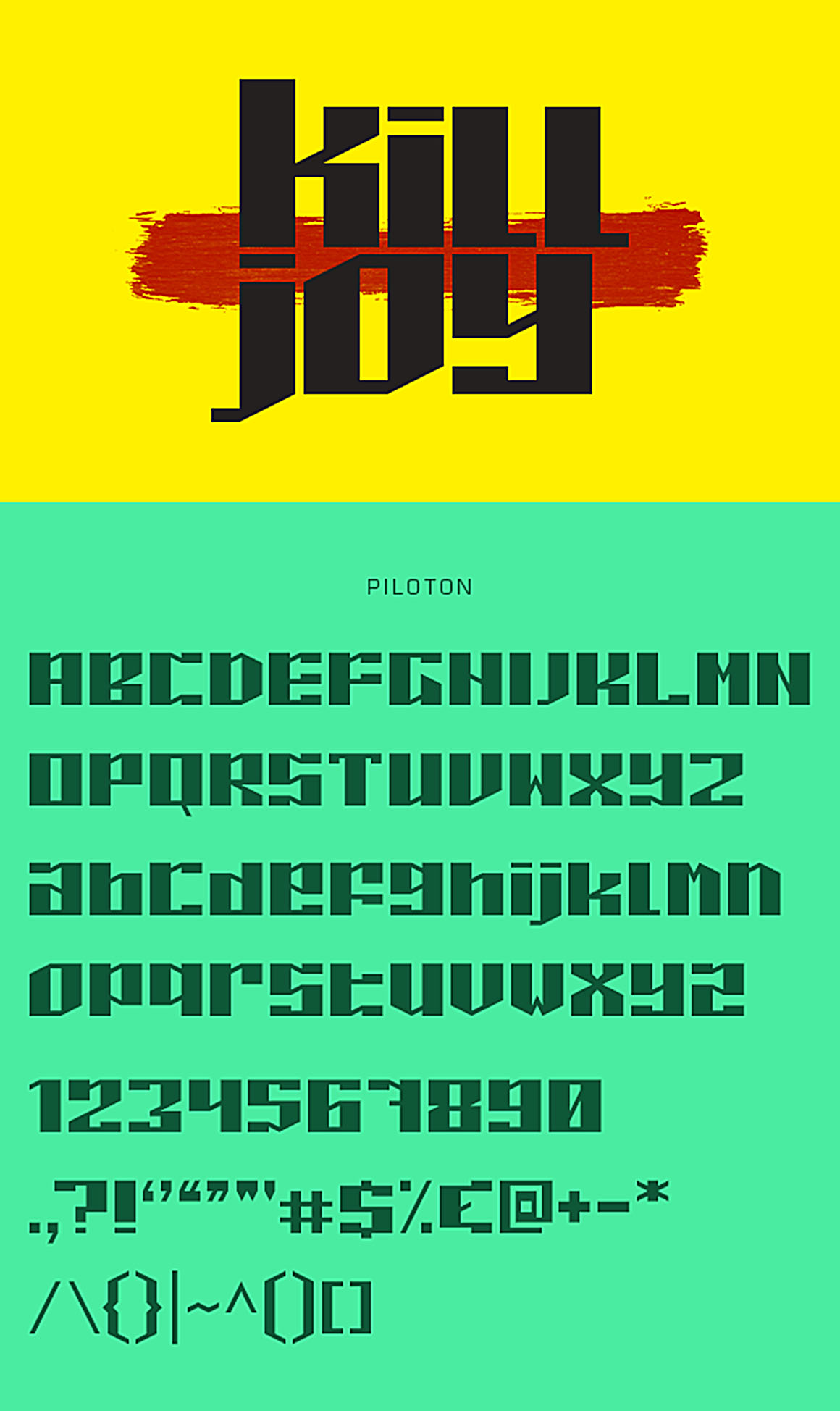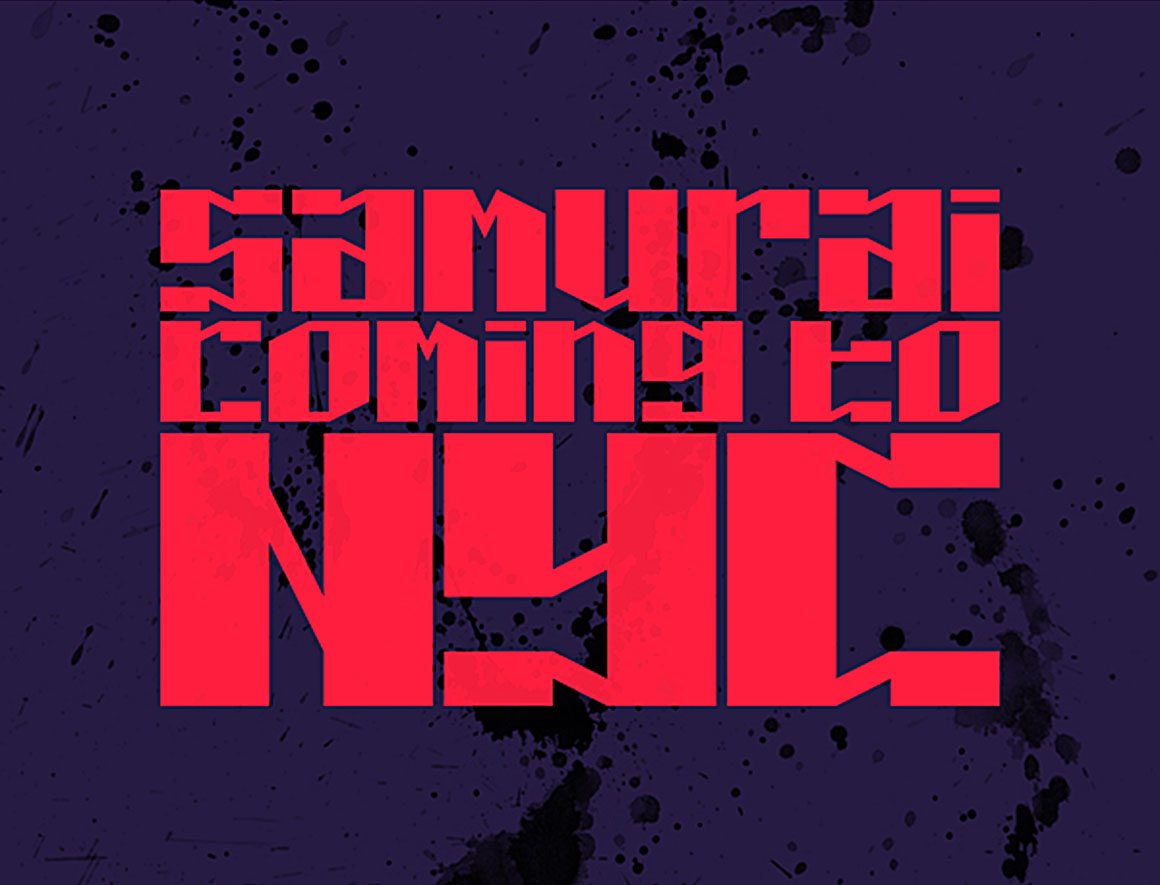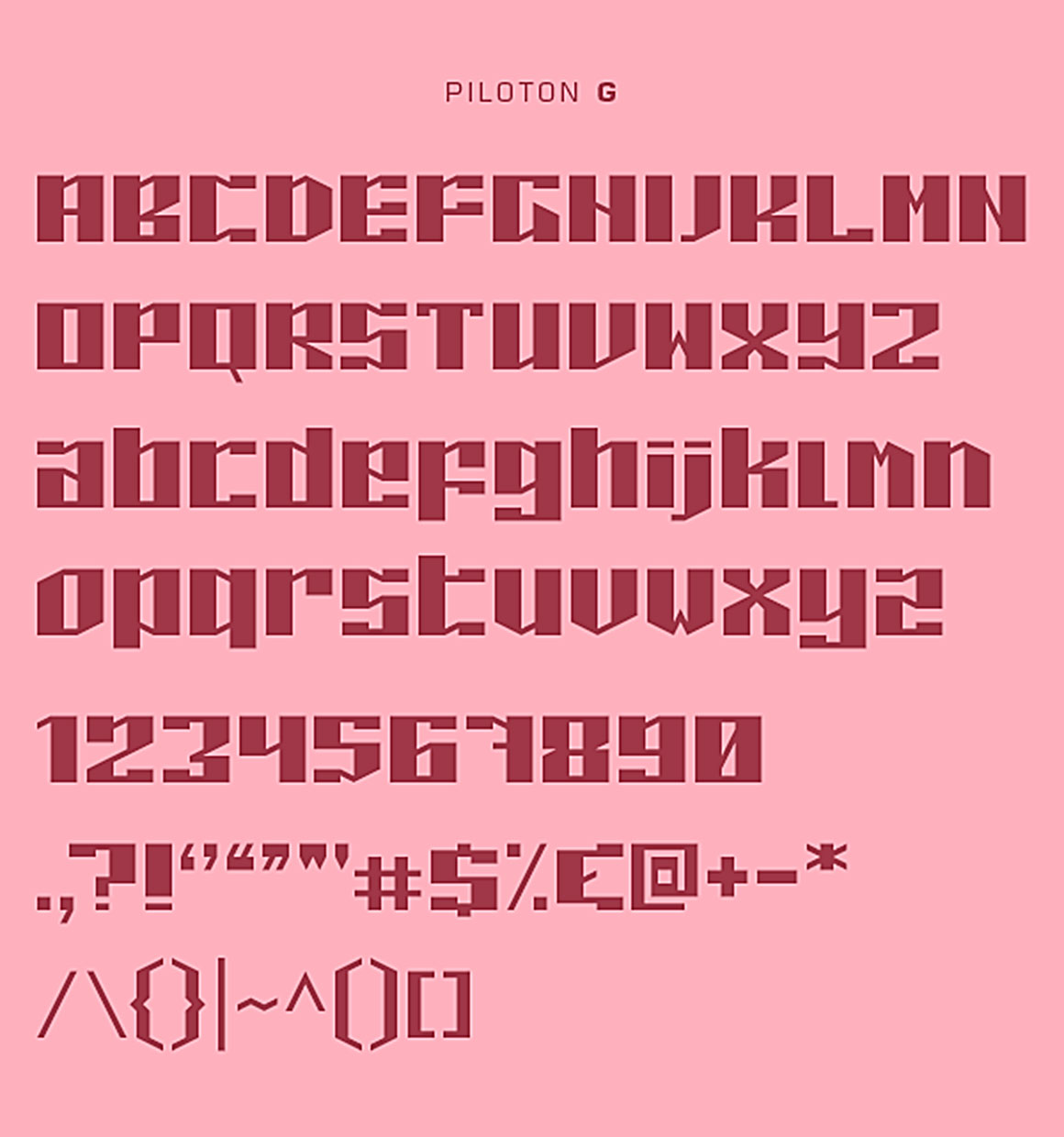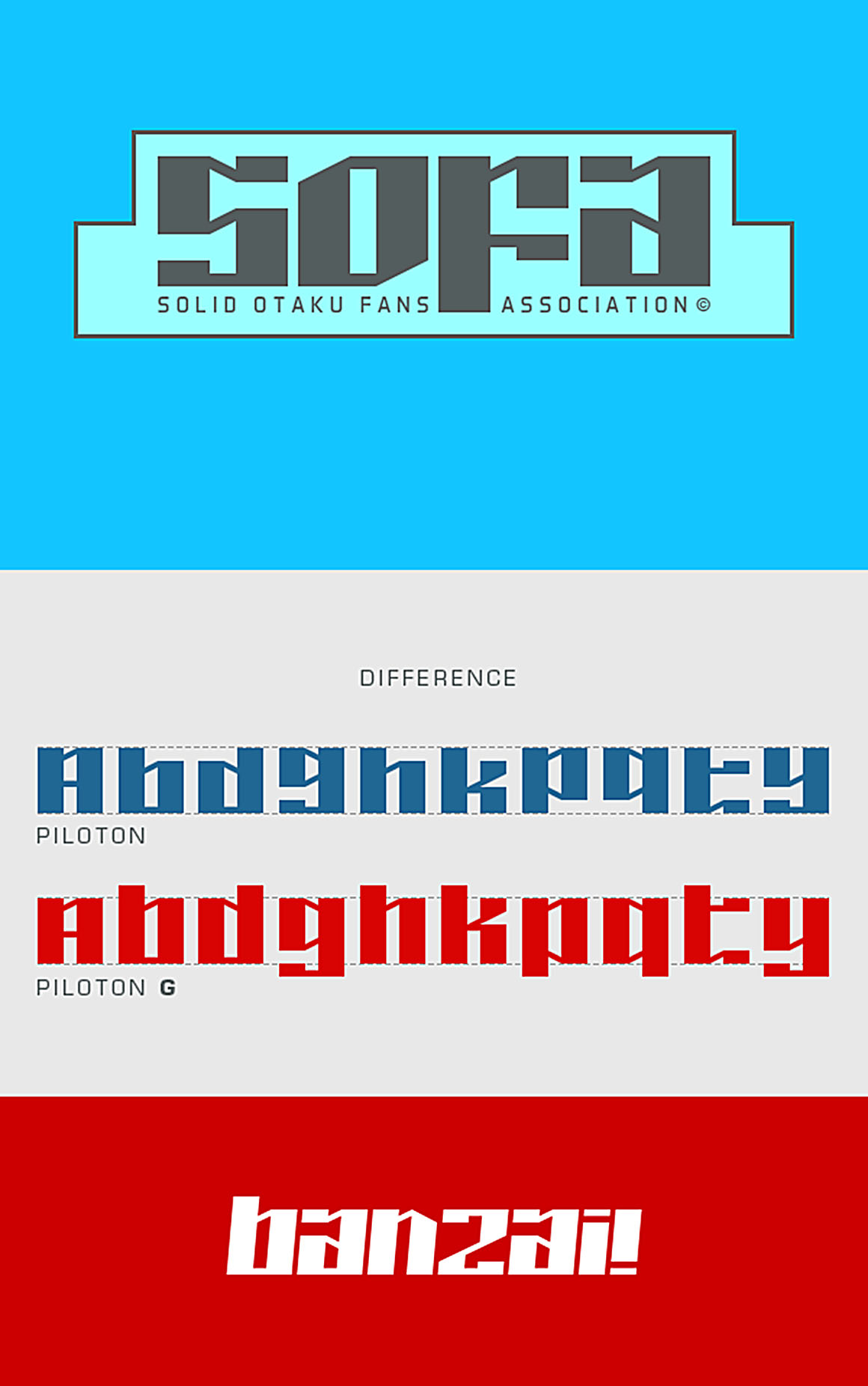
Piloton and Piloton G Free Fonts
This 2 cool custom fonts are from Aaron Amar. With unique modern or futuristic style and great for your new projects. Download and enjoy 😉